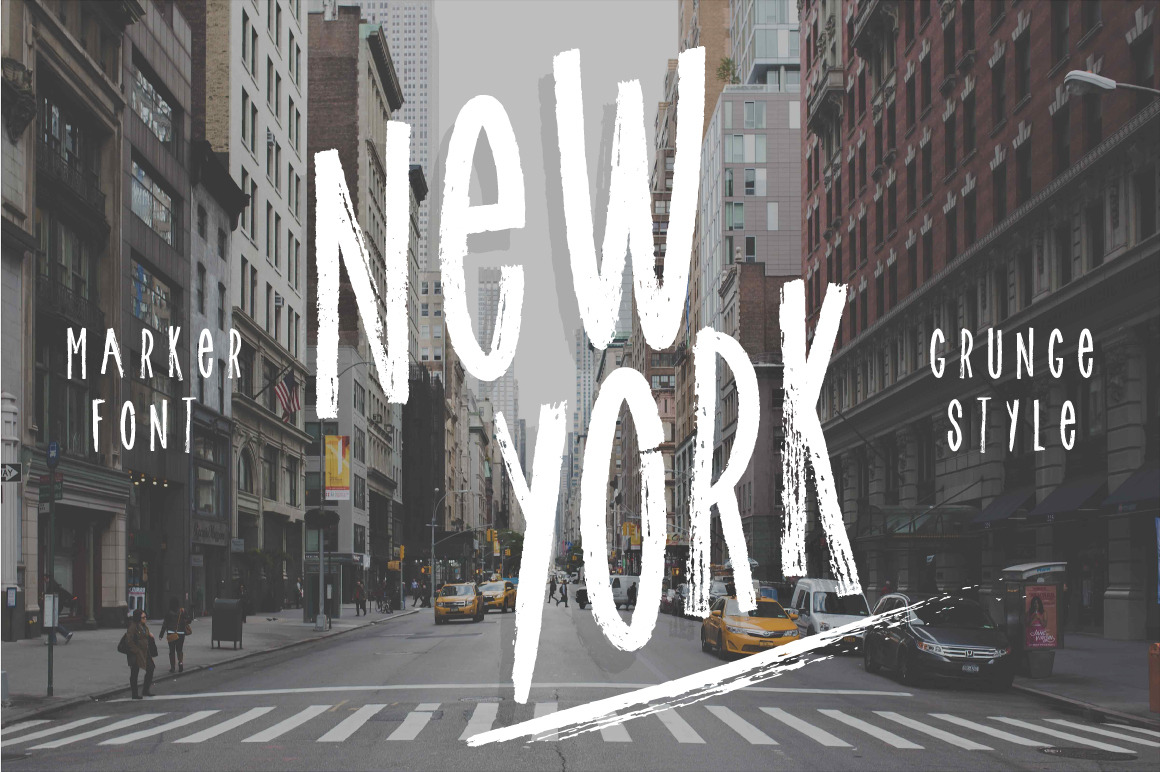
New York Font!
New York font! An amazing, new and unique font is just in front of you! New York is a totally handmade marker font with an amazing kinda grunge style.
- Perfect for branding, social media, cards, merchandise, posters, etc.
- With latin characters, ¡Qué viva el poder de la ñ!